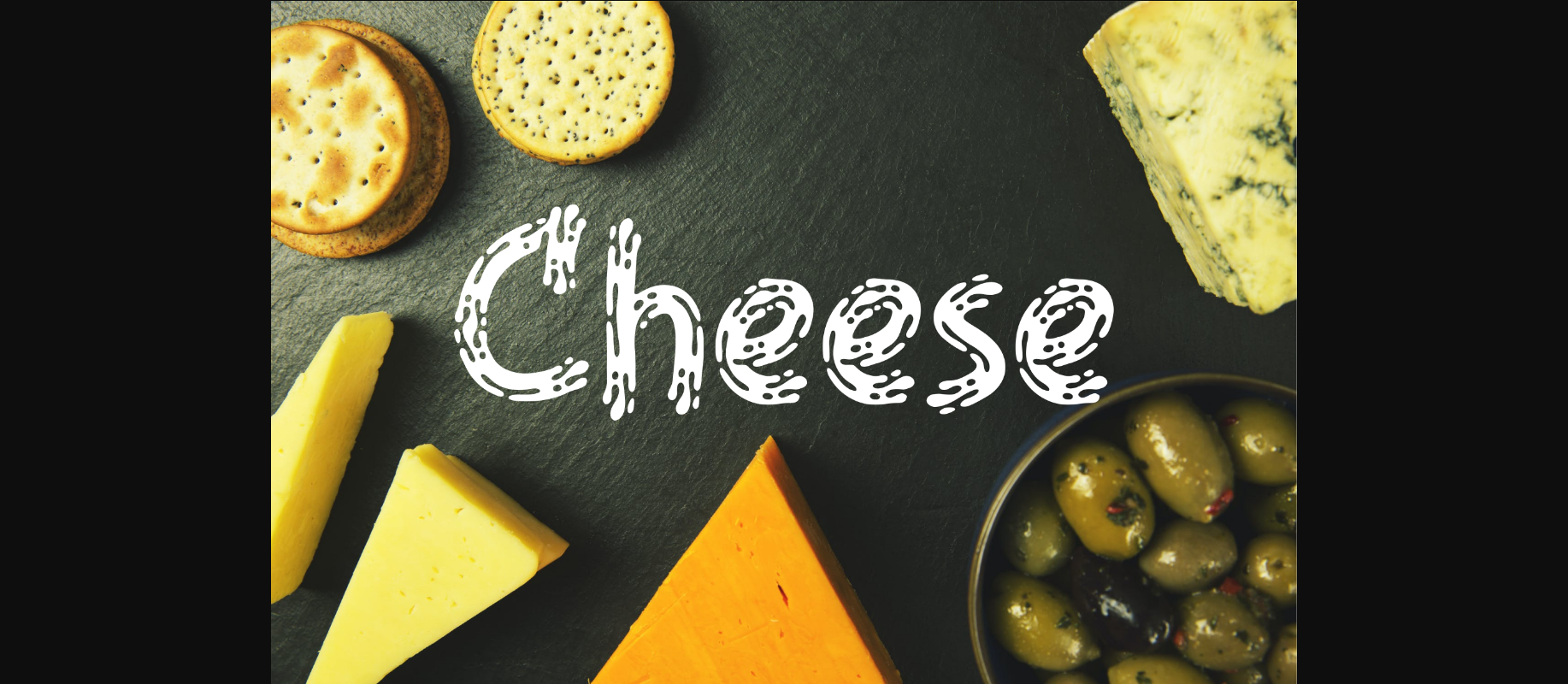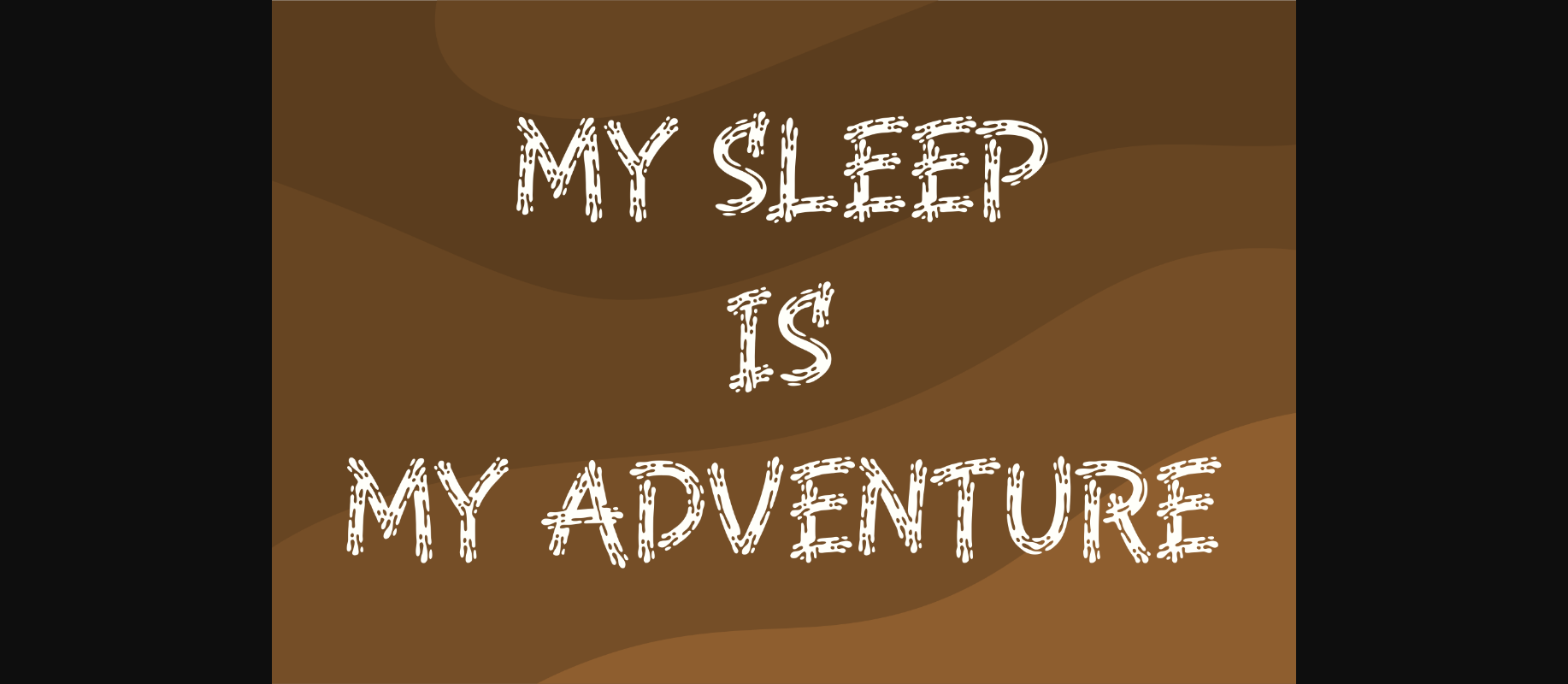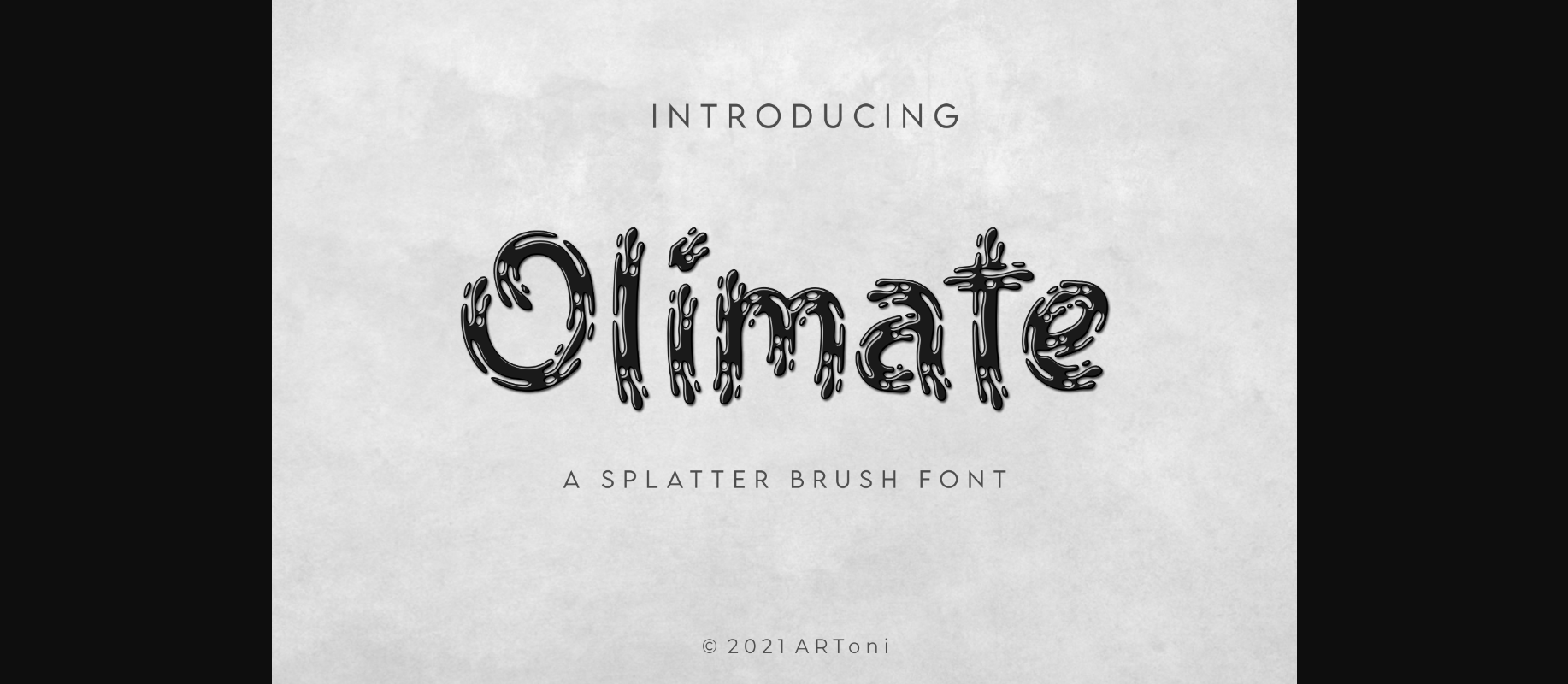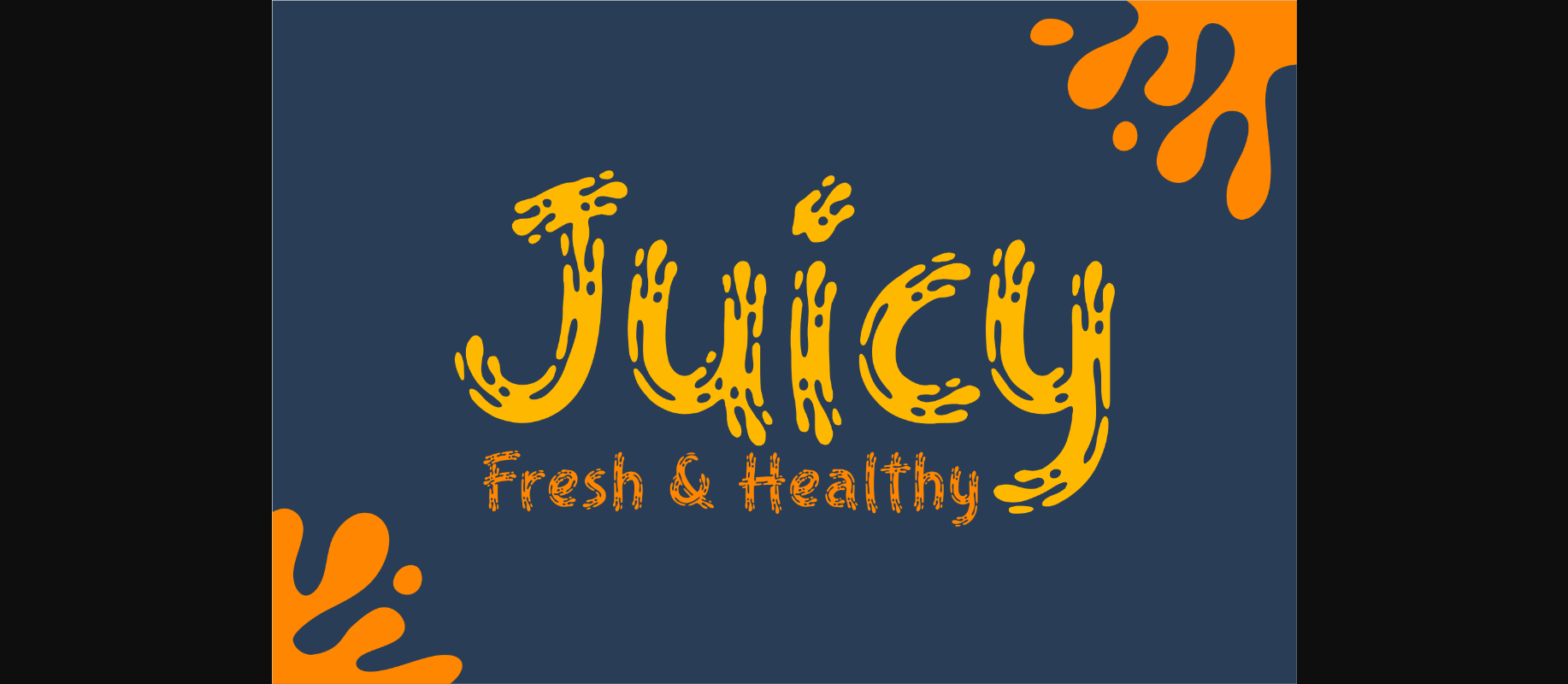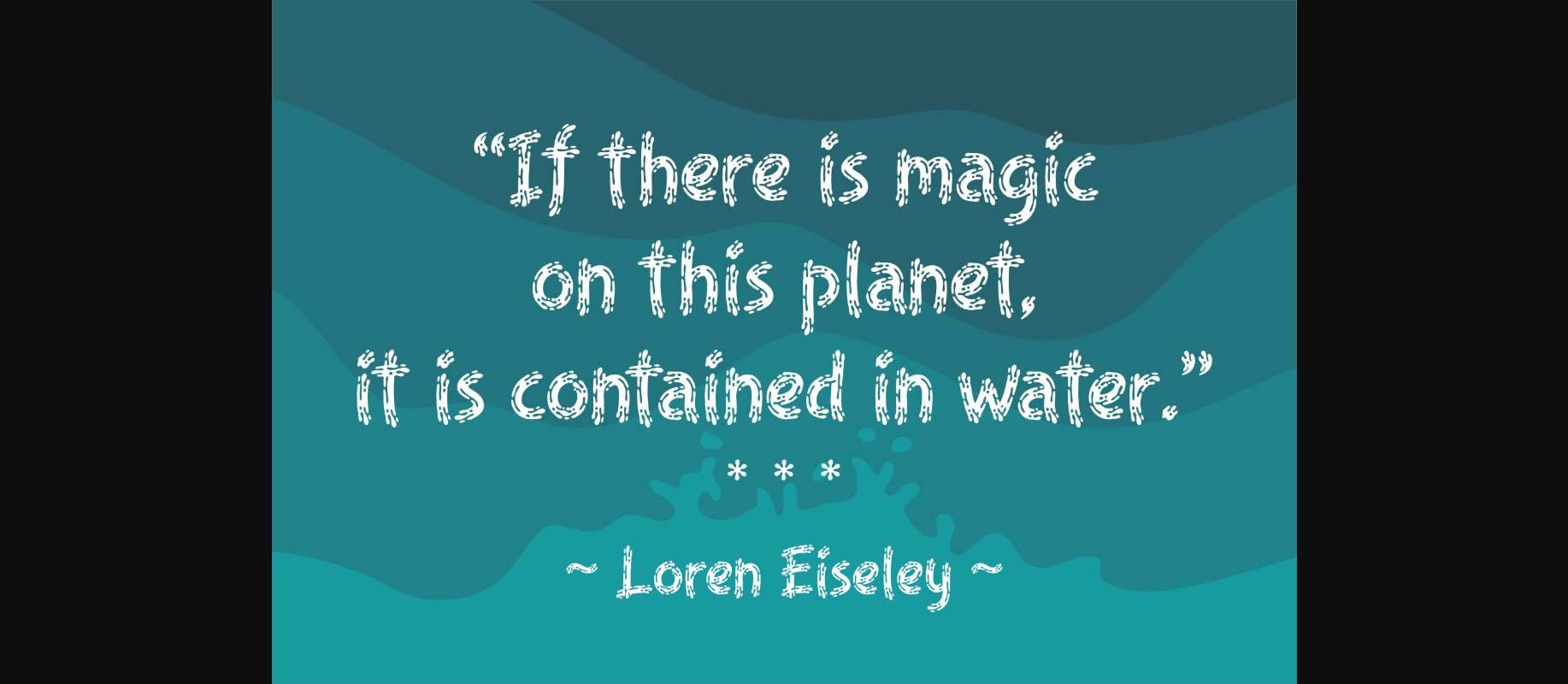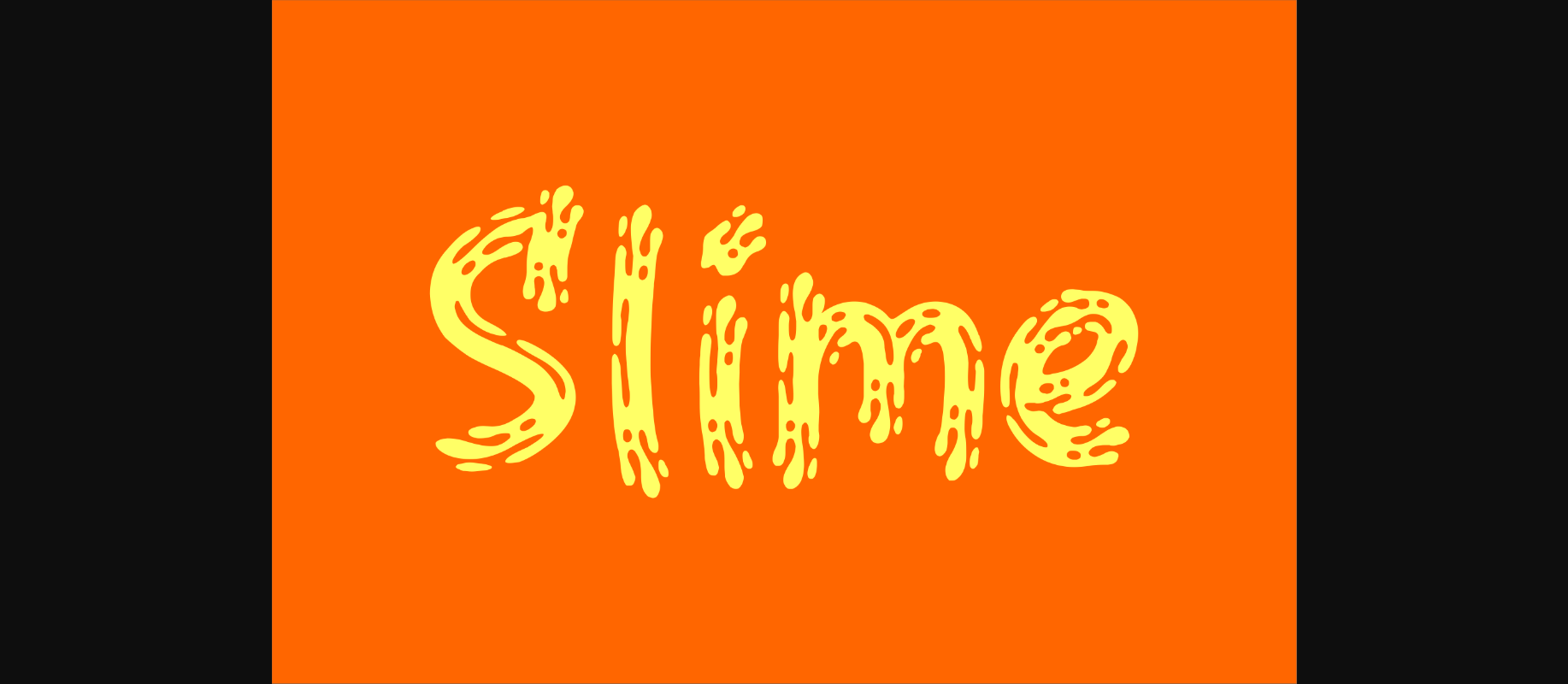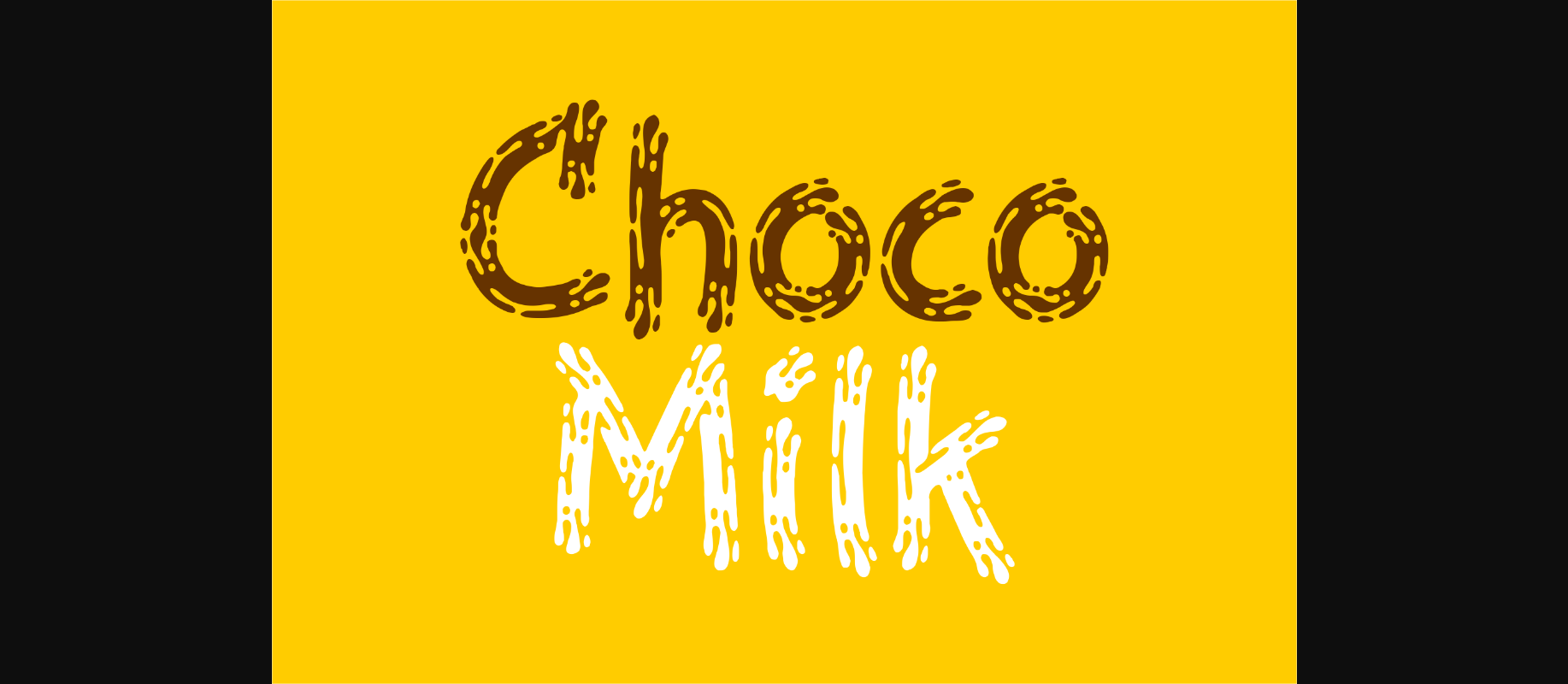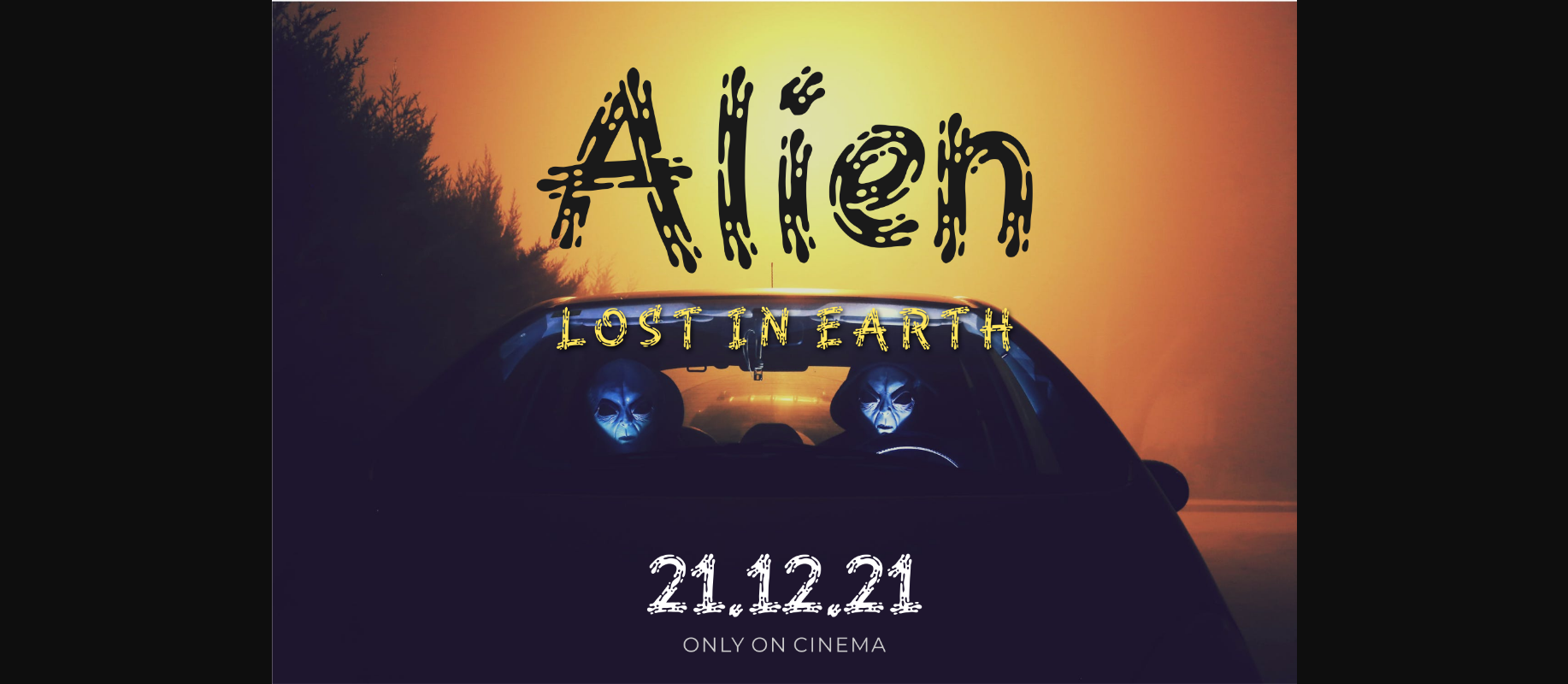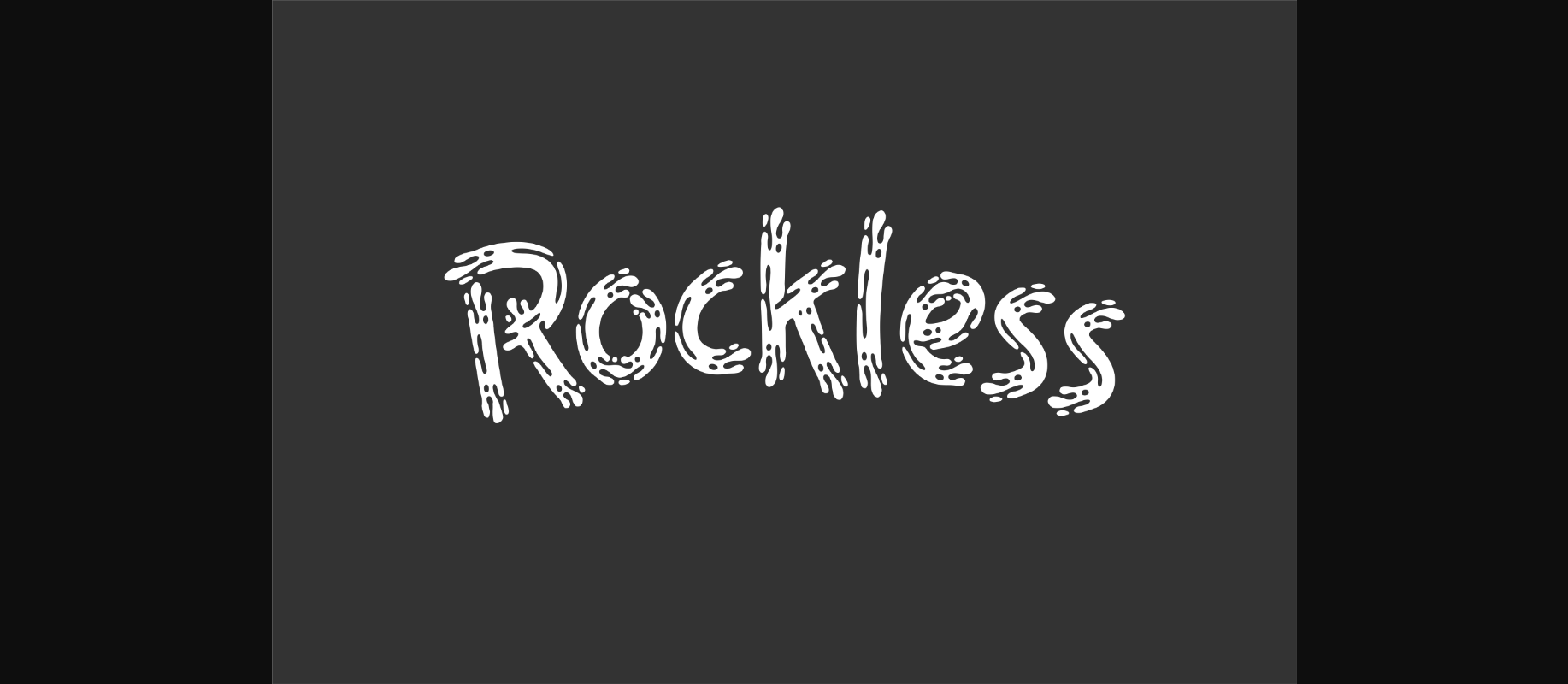
Olimate is a cool, summer inspired decorative font, featuring characters made entirely out of tiny splashes. Add this font to your most creative ideas, and notice how it makes them stand out!